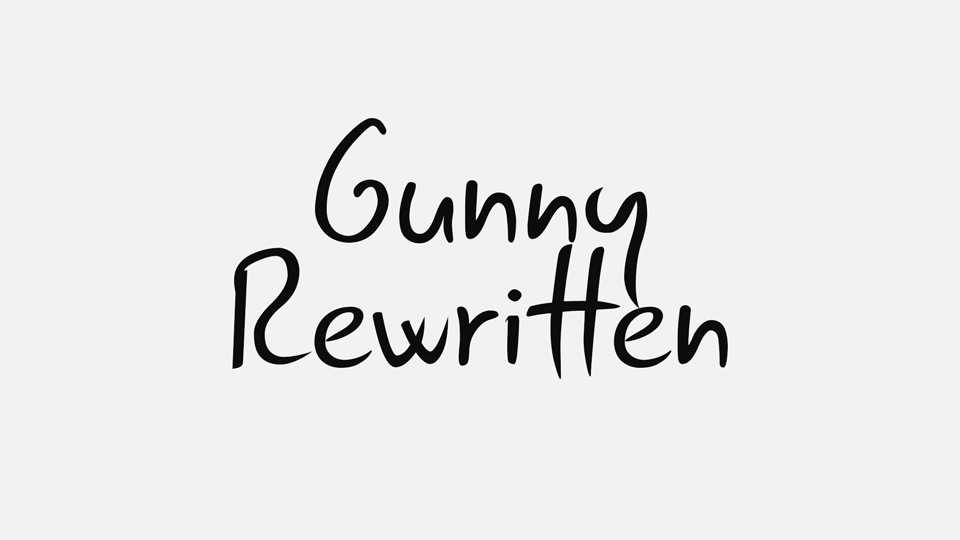
Download Gunny Rewritten font, a casual and natural typeface based on the original handwriting. It’s perfect for handwritten notes, greeting cards, beautiful quotes, and crafts as well.